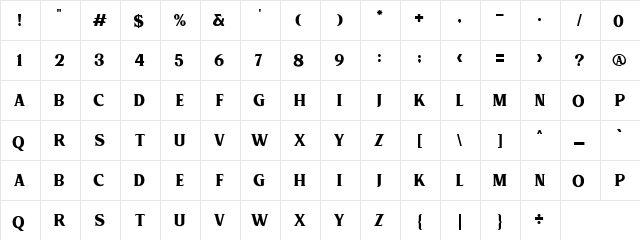
MUARA DEMO Regular
| Designer | Adil Budianto |
Design Context for MUARA DEMO Typeface
MUARA DEMO offers clean, dependable letterforms without strong stylistic allegiance, making it a practical choice for designers who need flexibility.